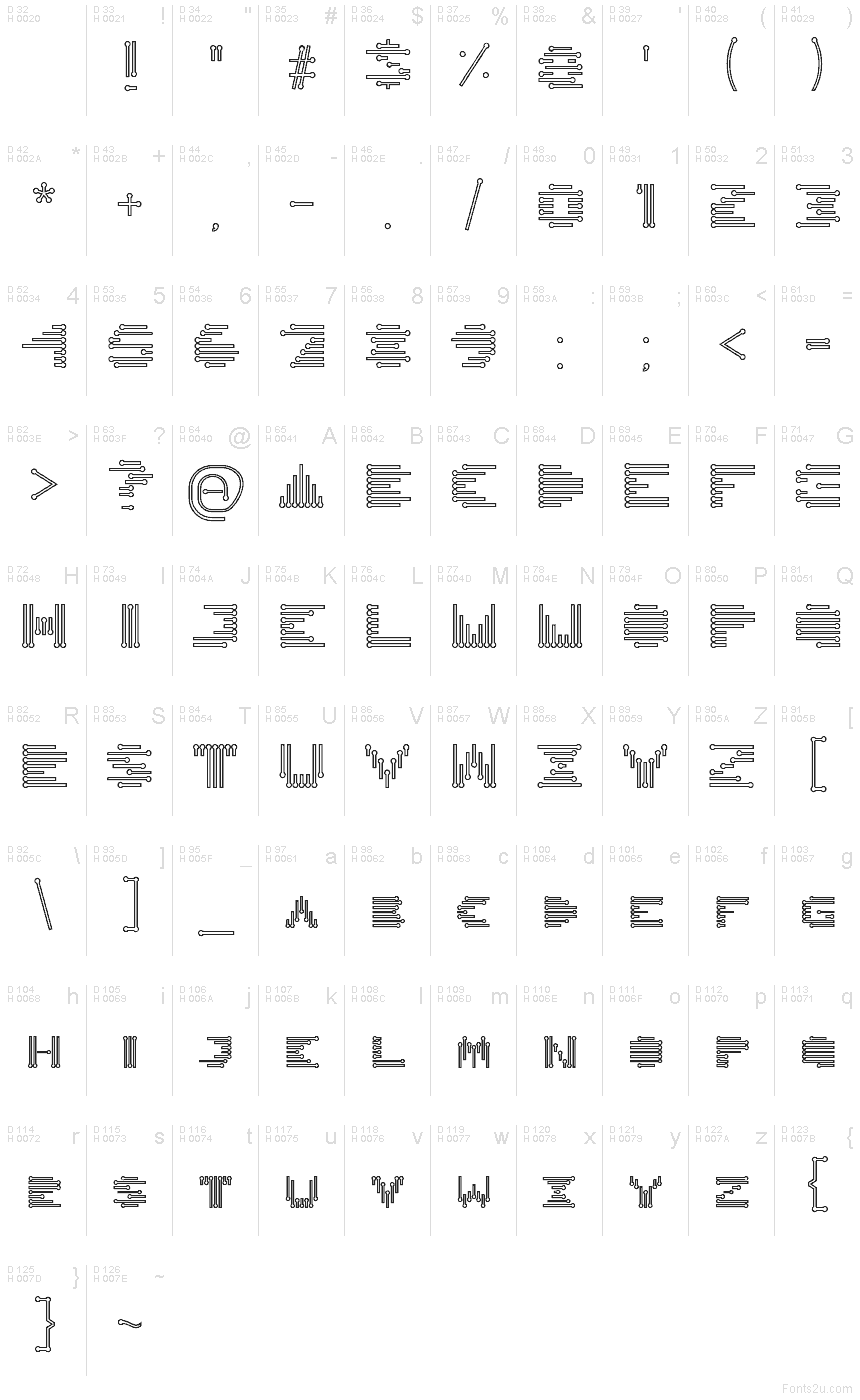
Music Volume Out Line
Music Volume Out Line font by Galih Nugroho is a free techno display font that turns equalizer bars and slider tracks into letterforms. Built within the Music Volume family, its outlines stack like audio meters, with rounded caps that feel like glowing knobs in a dark booth. The rhythm is mechanical yet playful, creating a pulsing texture that reads as sound at a glance.
Using Music Volume Out Line, headlines snap to attention on music festival posters, DJ flyers, album covers, streaming banners, tech event identities, and motion graphics. The airy outlines keep dense words surprisingly legible and add motion without animation. Pair this free font with a clean geometric sans for body copy, and let it run large to amplify the waveform vibe.